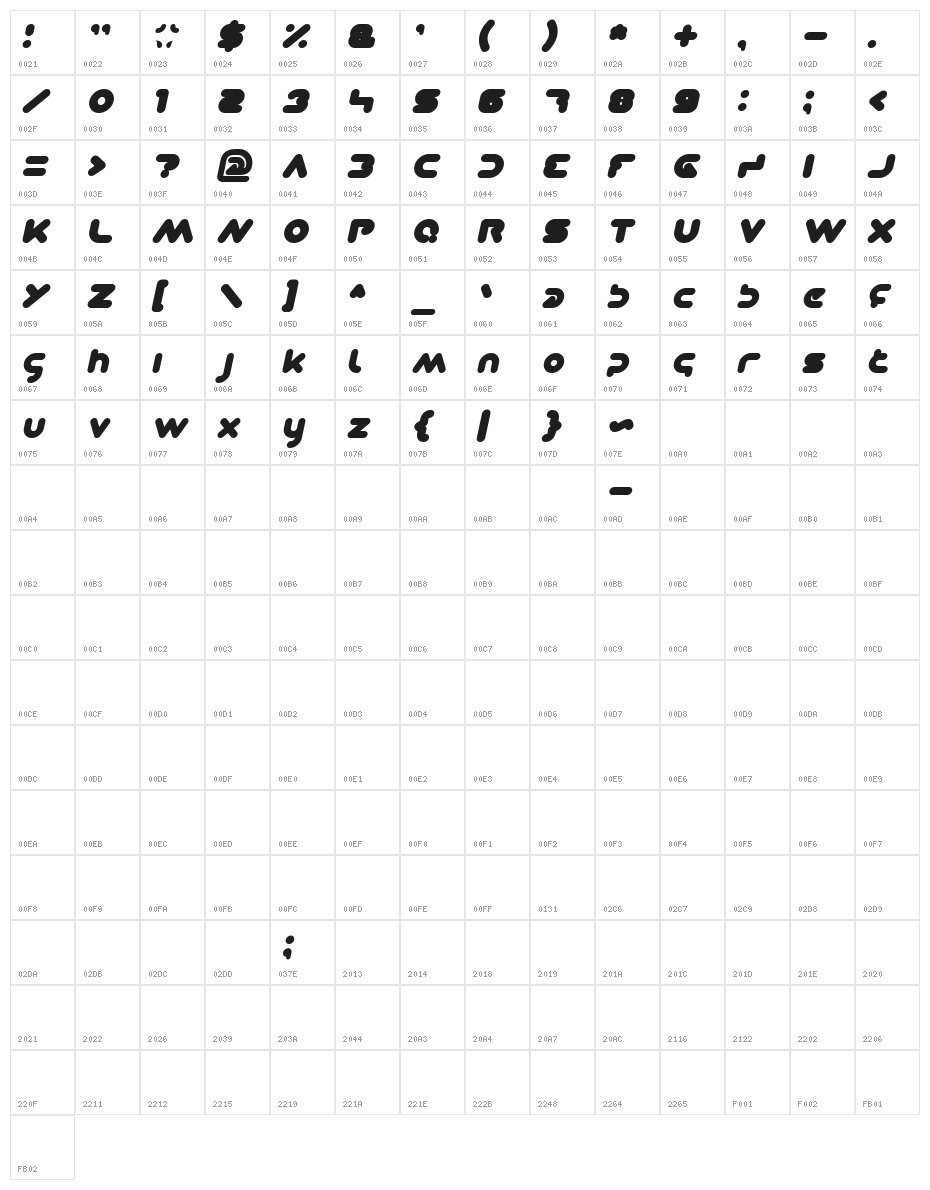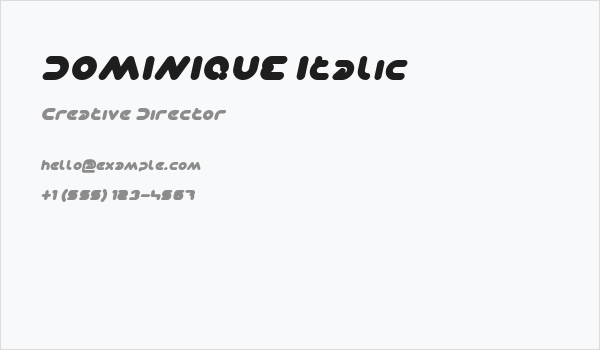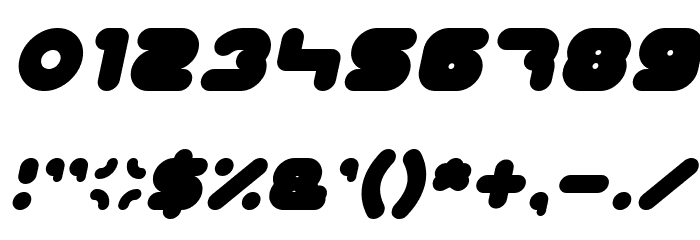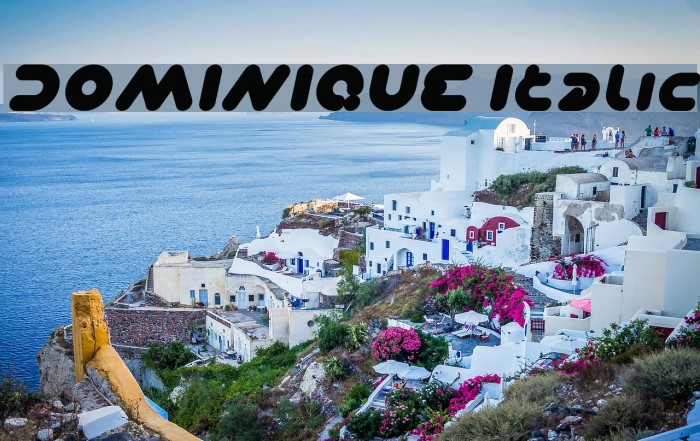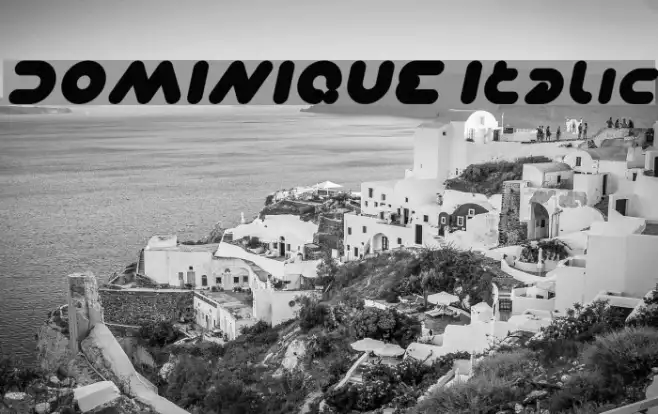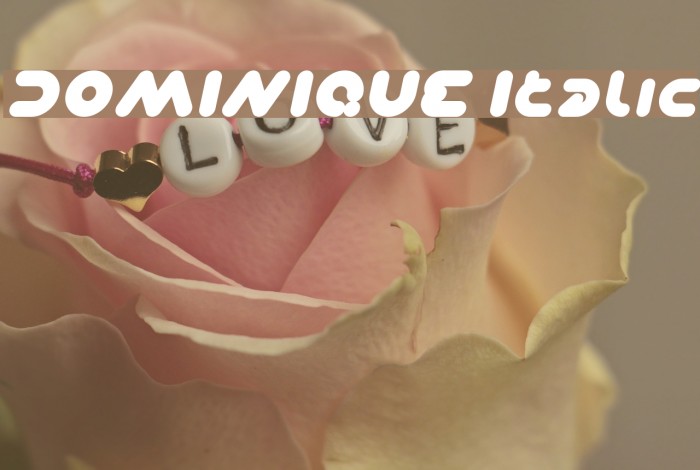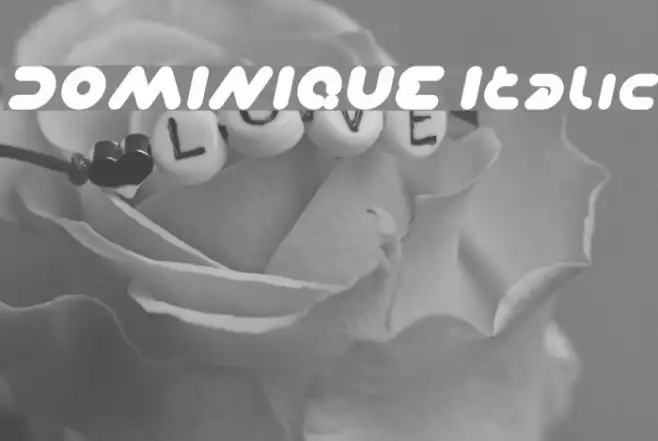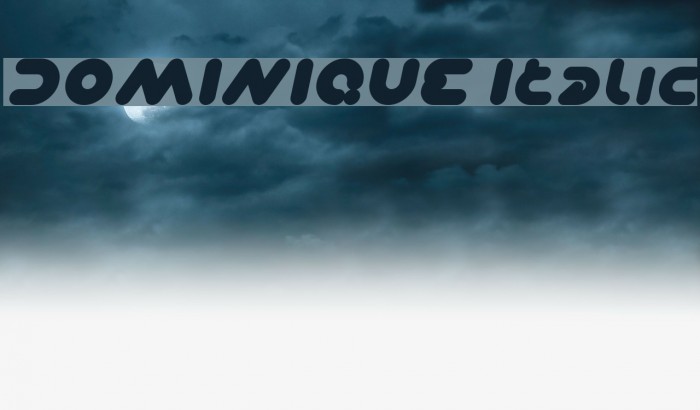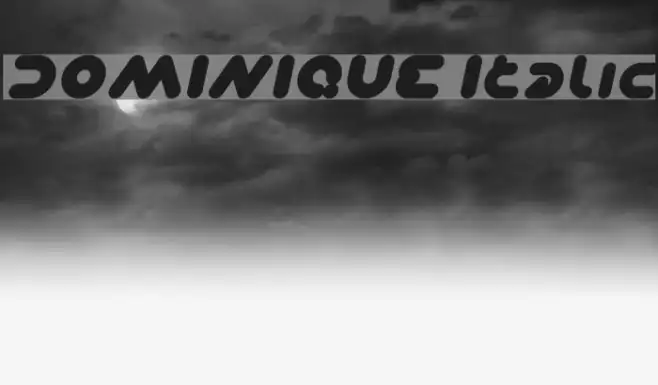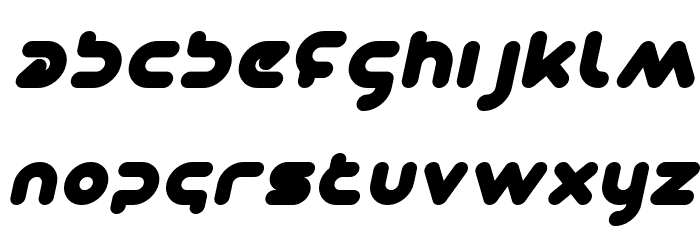
DOMINIQUE Italic Font
DOMINIQUE Italic Description
This font features a bold and rounded style with a playful and modern aesthetic. The characters are heavily weighted with smooth curves and a consistent thickness throughout, giving it a bubbly and friendly appearance. The uppercase and lowercase letters maintain a uniform style, with rounded edges and a slightly italicized slant, adding a dynamic feel. Numbers and special characters follow the same design principles, ensuring a cohesive look across all elements. The font's boldness and unique style make it stand out, suitable for eye-catching designs.